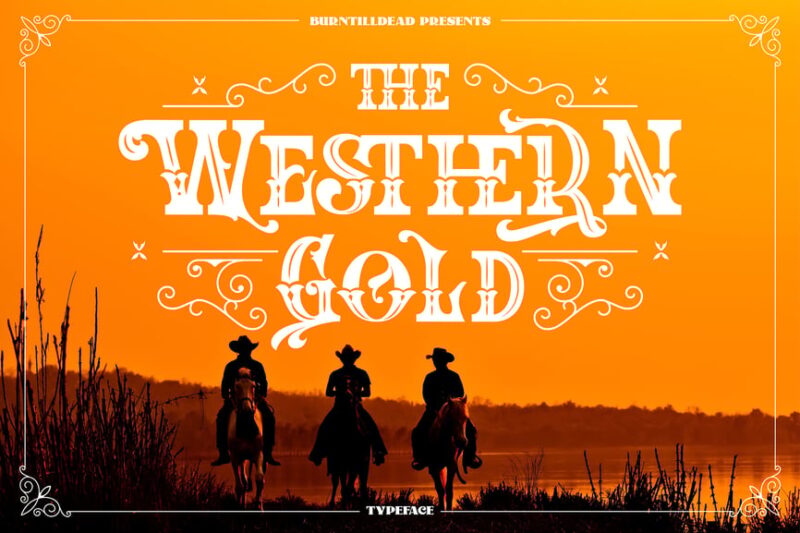
Transform your text into Wild West adventure with our free Western font generator! Perfect for creating frontier-inspired designs that capture the rugged spirit of the American Old West. Our tool features authentic saloon-style typography that would make any cowboy or cowgirl proud to hang on their ranch wall.
The Western Gold
The Western Gold is a sans-serif decorative font that embodies the spirit of the Wild West. Its bold, rugged characters are perfect for creating eye-catching headlines and logos with a country or western theme. This font is ideal for designers looking to add an authentic frontier feel to their projects.
Western Brother
Western Brother is a decorative font that captures the essence of American western design. Its rough-hewn edges and sturdy letterforms evoke images of old saloons and wanted posters. This font is perfect for designers seeking to infuse their work with a touch of frontier nostalgia and rugged charm.
Western Groove
Western Groove is a serif font that brings the cowboy aesthetic to life. Its distinctive slab serifs and playful curves create a lively, rhythmic feel that’s perfect for western-themed designs. This font is ideal for designers looking to add a touch of frontier flair to their typography while maintaining readability.